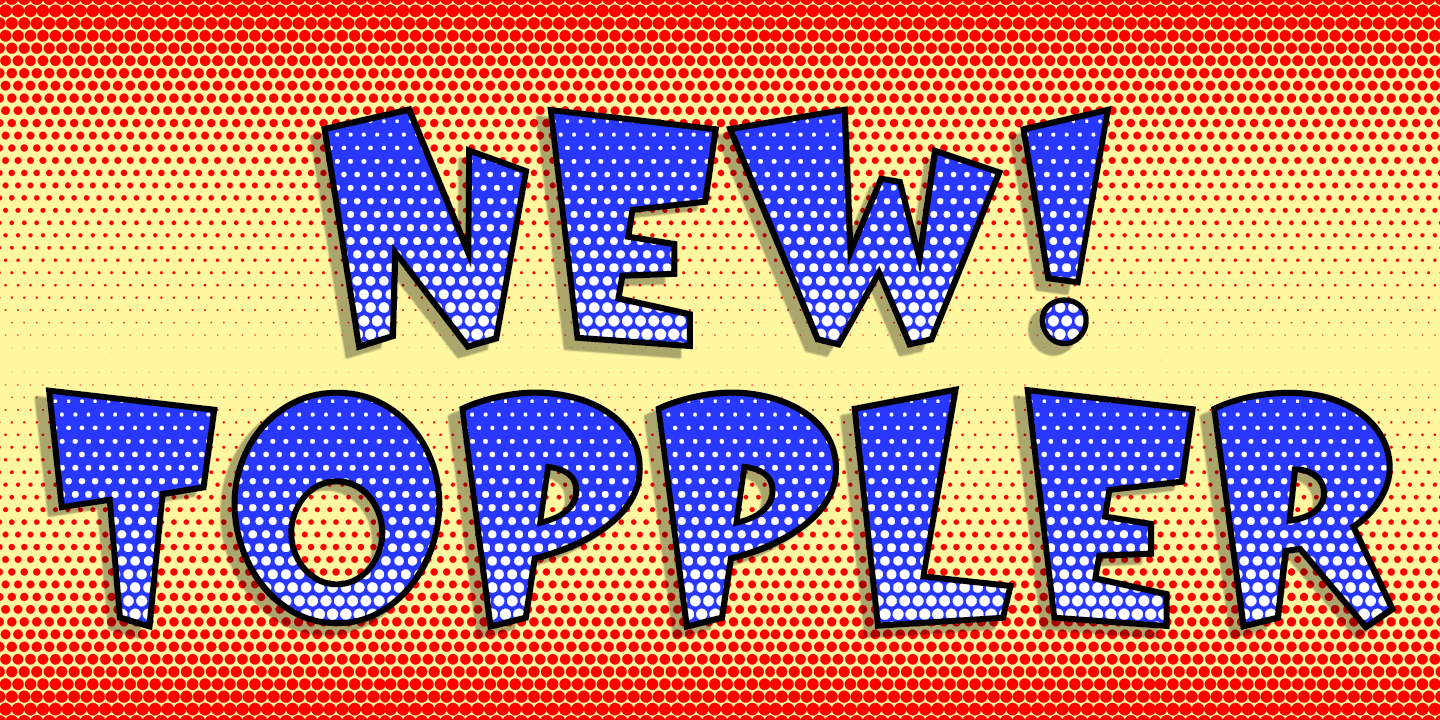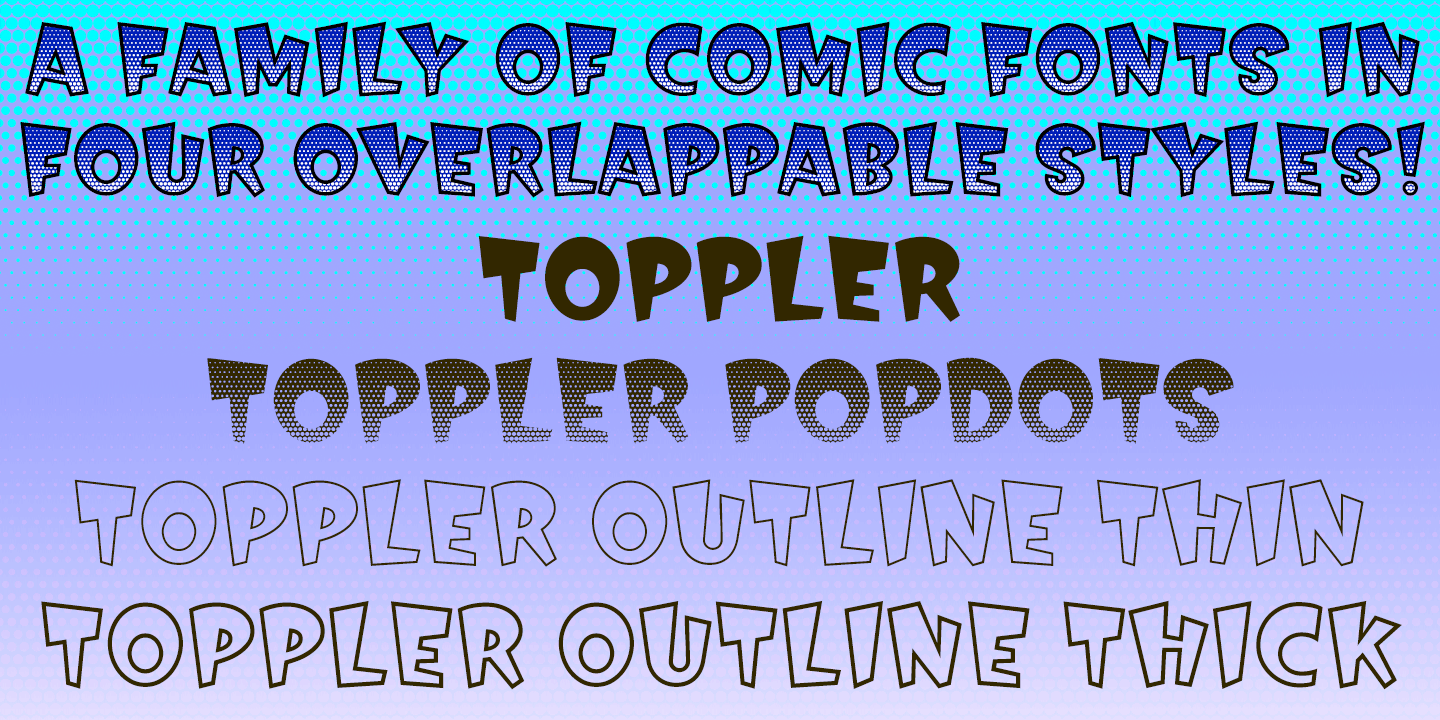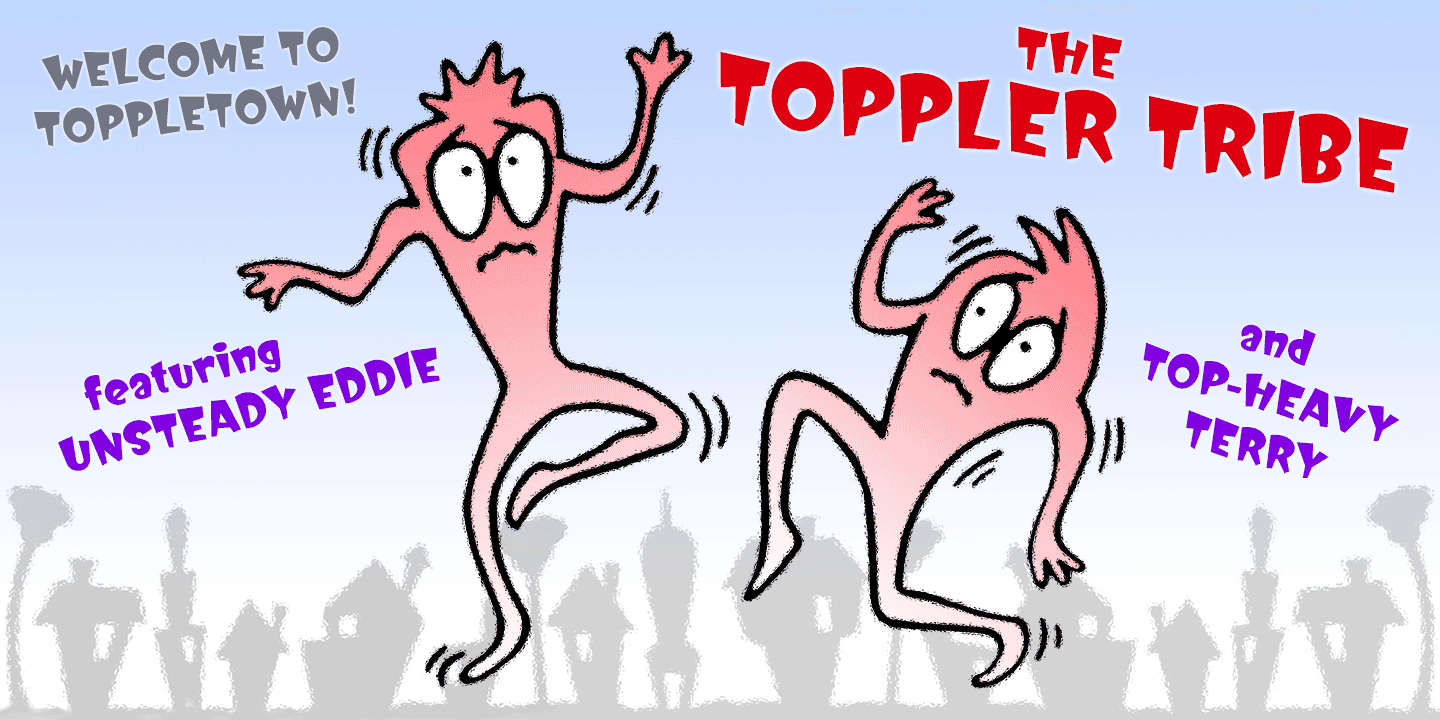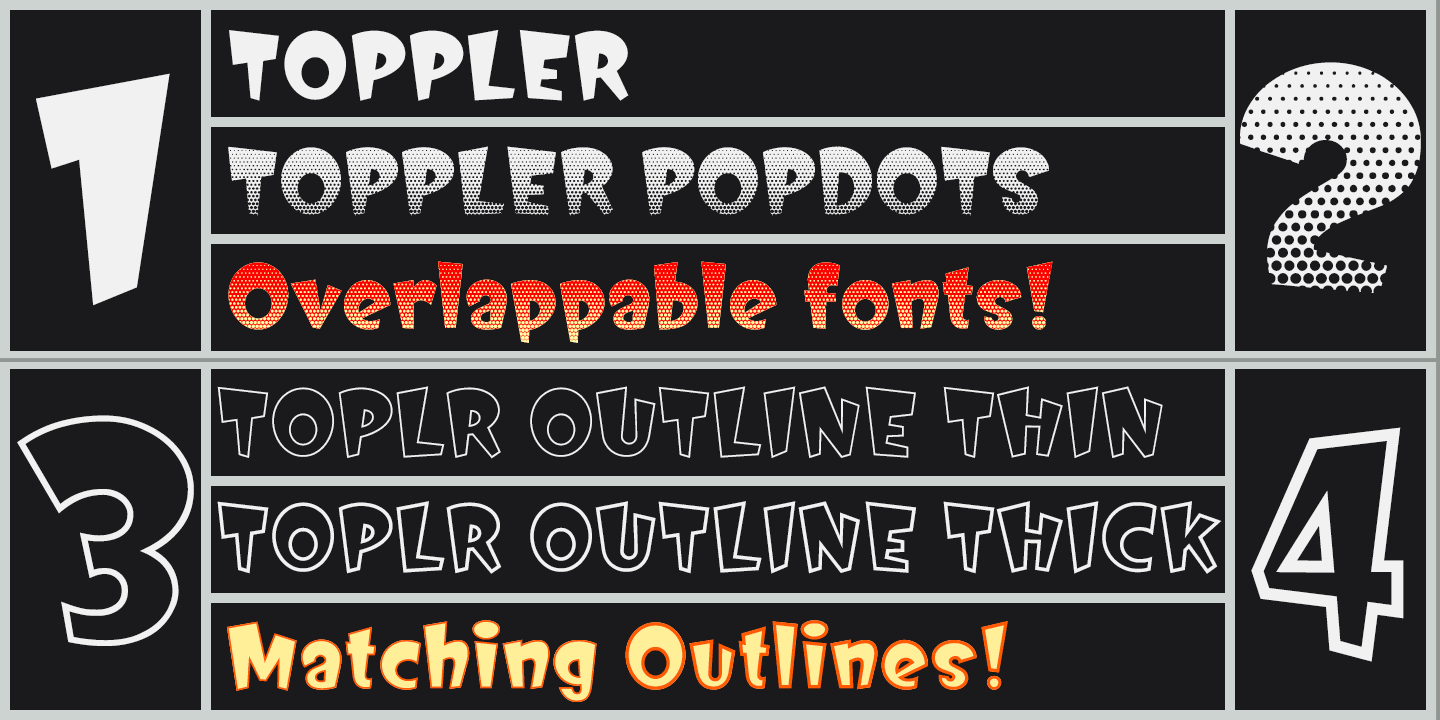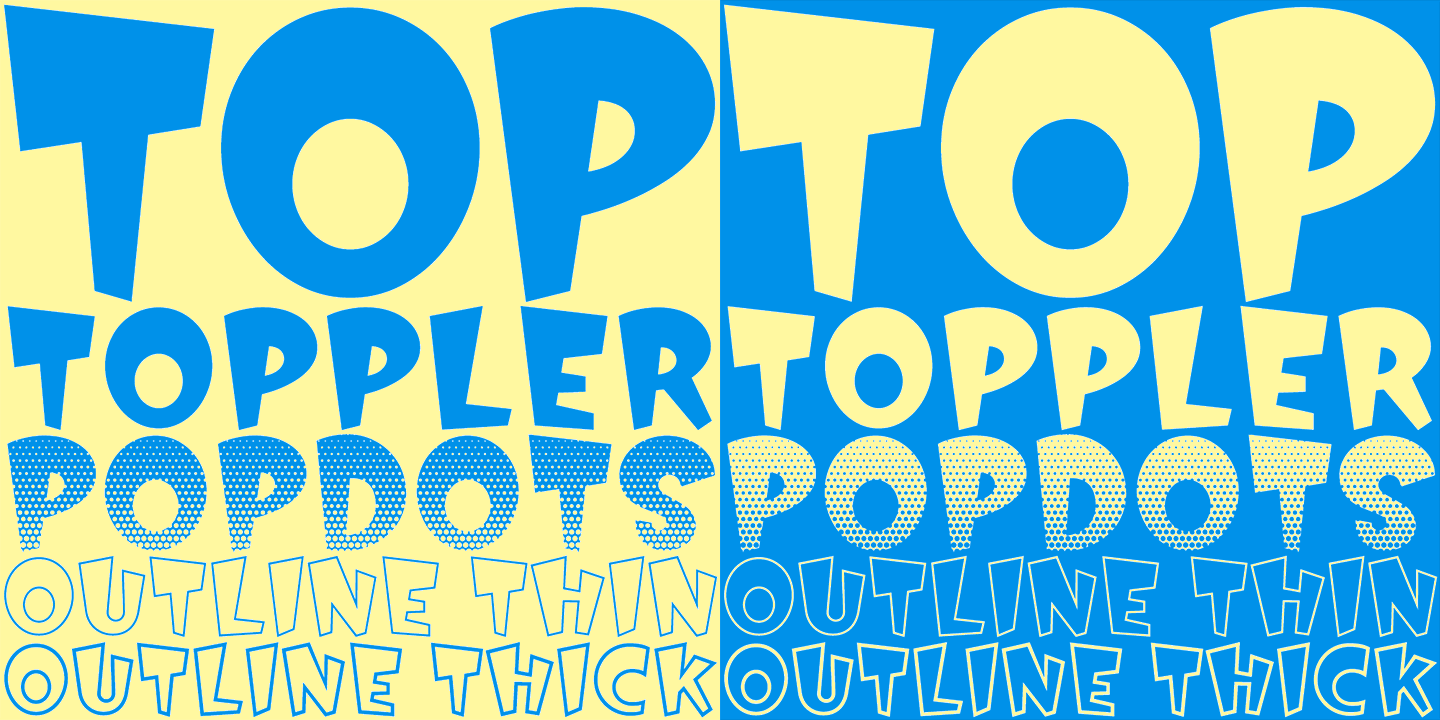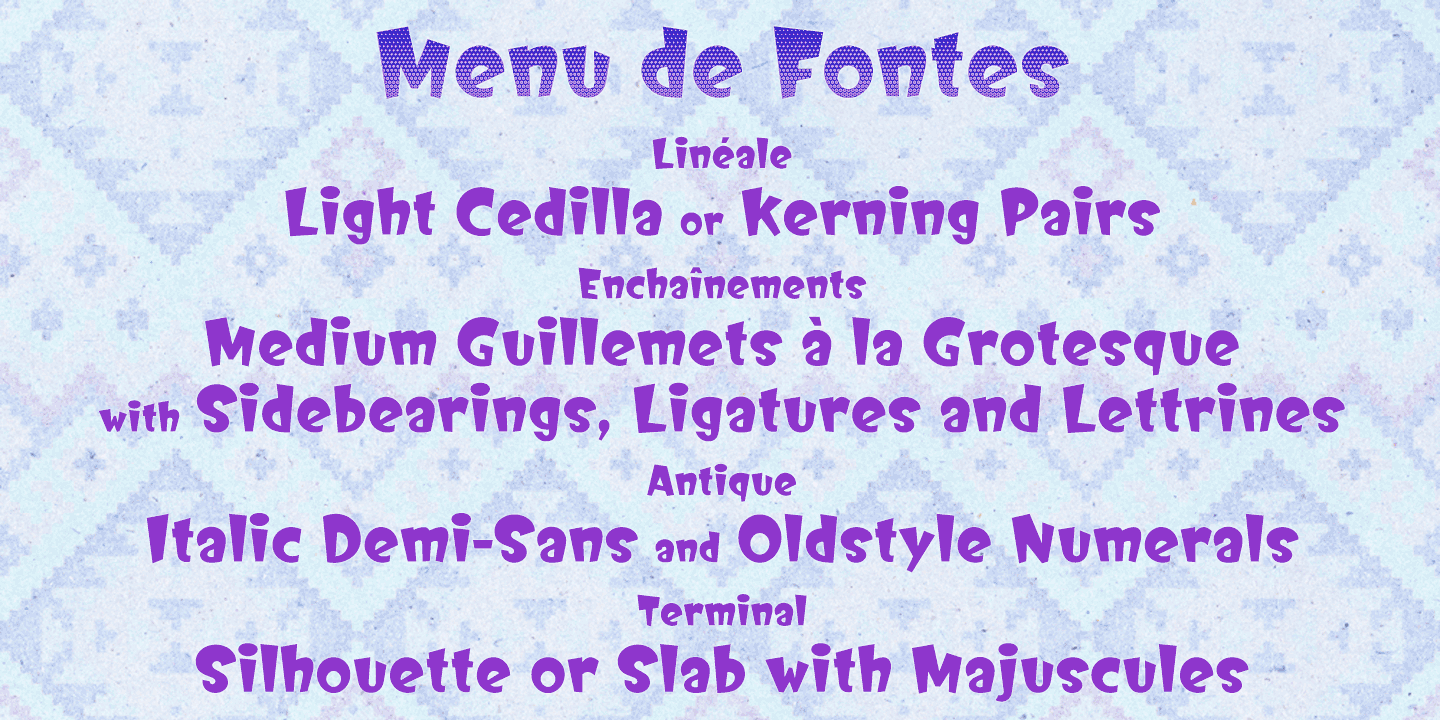
Toppler
Buy NowToppler is a top-heavy comic face, K-Type's salute to nineties freebies such as Ben Balvanz's Baby Kruffy, Comix Heavy from WSI, and Dave Bastian's Startling. Unlike those glorious fonts-of-old, Toppler contains a complete repertoire of symbols, dingbats and Latin Extended-A accented characters, as well as a proper lowercase, careful spacing and tasty kerning. Toppler also boasts cleaner outlines and more refined shapes.
The Toppler family comprises four fonts that share spacing and kerning, so can be overlapped to produce bicolor and multicolor effects. In addition to the solid Regular, there is a shaded ?Popdots? style, plus thick and thin outline fonts.